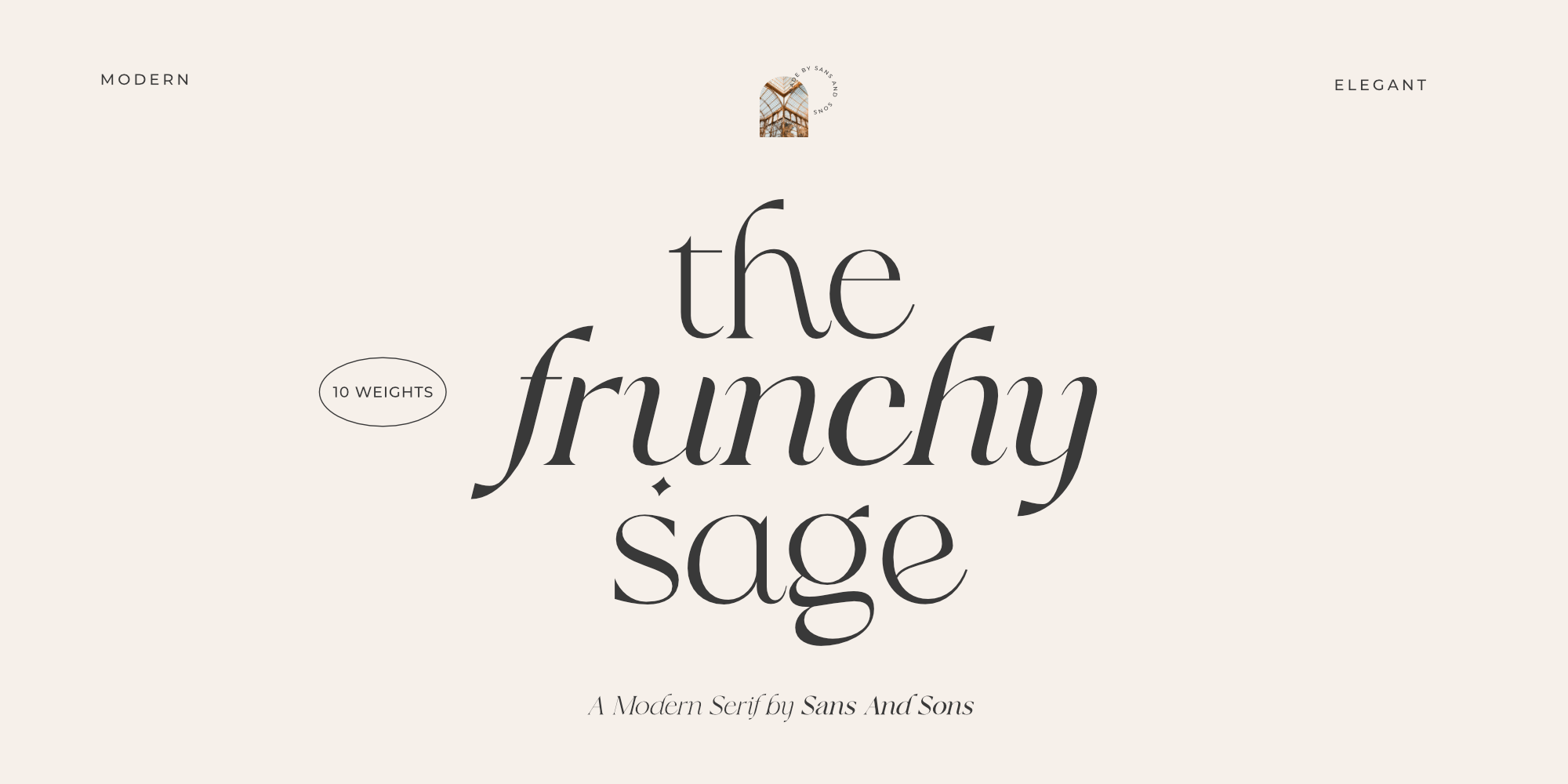
Frunchy Sage Free Download
Frunchy Sage Font Free Download
The Frunchy Sage Font is ideal for playful natural design projects including organic food packaging, children's educational materials, eco-friendly brand identities, garden center signage, herbal product labels, farm-to-table restaurant menus, natural wellness campaigns, and wholesome family-oriented marketing materials. This charming typeface brings delightful earthiness and wholesome appeal to any design project celebrating natural living and family-friendly values.
What makes Frunchy Sage Font so exciting is its perfect combination of playful character with natural wisdom that creates an immediate sense of wholesome authenticity and approachable expertise. The letters feature friendly, organic-inspired proportions with earthy charm that communicates both fun and trustworthy knowledge. This distinctive wholesome character makes it perfect for brands and projects that want to communicate natural wisdom, family values, and the appealing simplicity of earth-conscious living.
The Frunchy Sage Font family typically includes regular and bold weights, often with playful variations and nature-inspired decorative elements. Many versions feature organic symbols, garden-themed glyphs, and wholesome design elements that enhance its authenticity for natural living and family-oriented applications.
Whether you're designing for organic brands, family businesses, or natural lifestyle companies, Frunchy Sage Font Free Download provides the perfect solution for projects that need to convey wholesome wisdom and natural charm. This font transforms standard text into delightful designs that immediately communicate natural authenticity, family-friendly values, and the appealing wisdom of earth-conscious living to audiences seeking genuine, wholesome experiences and natural lifestyle choices.